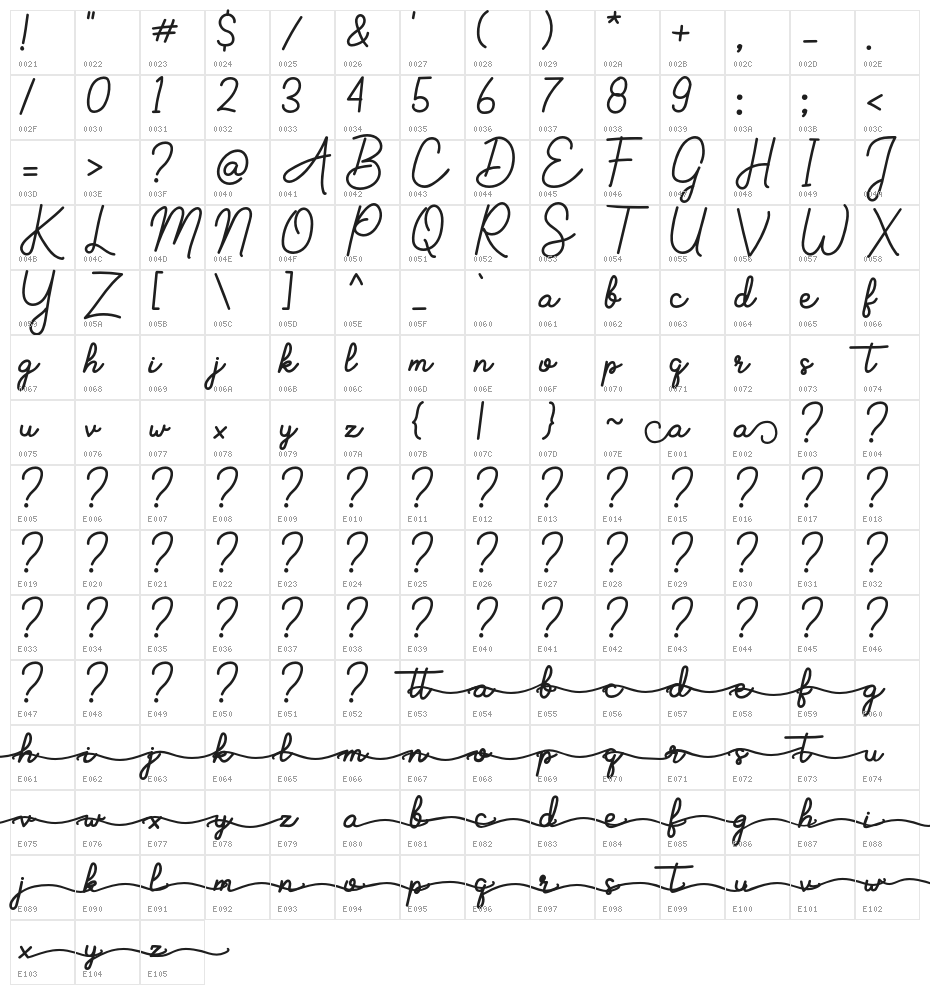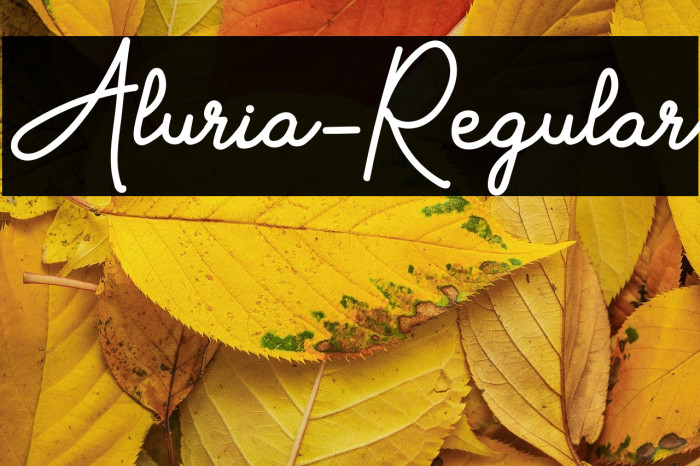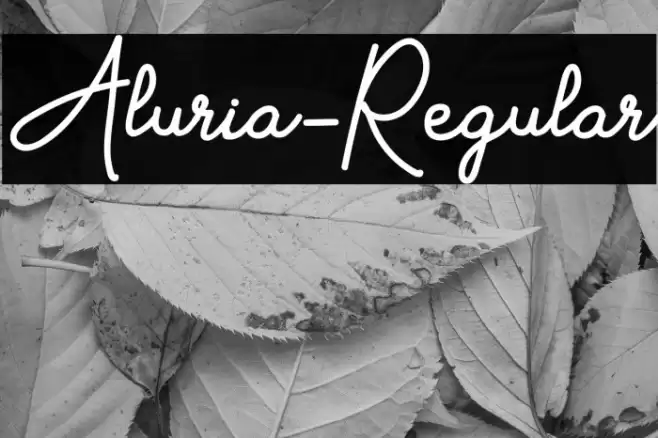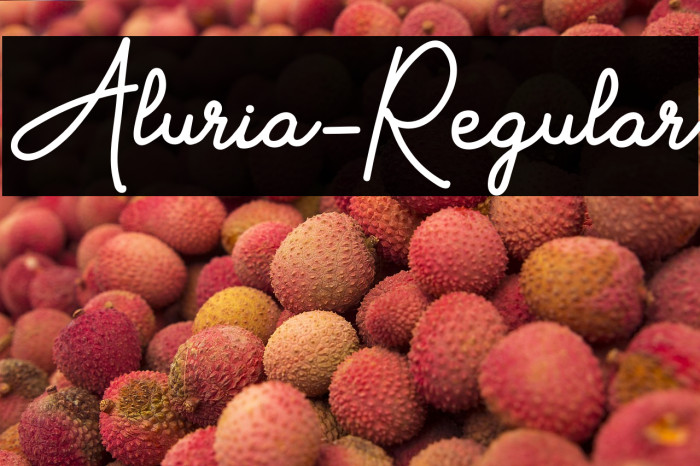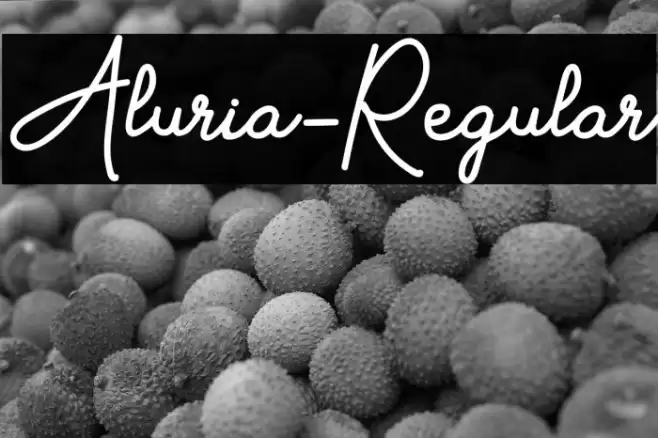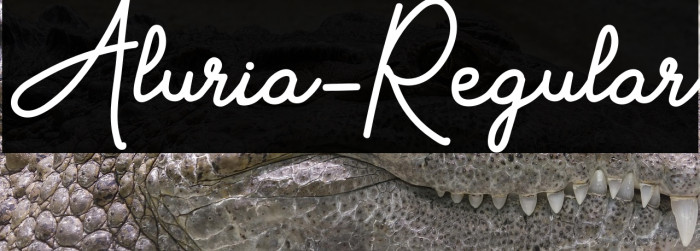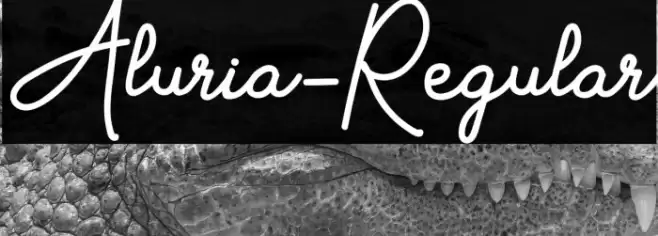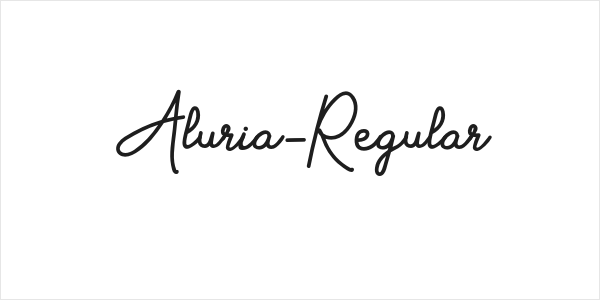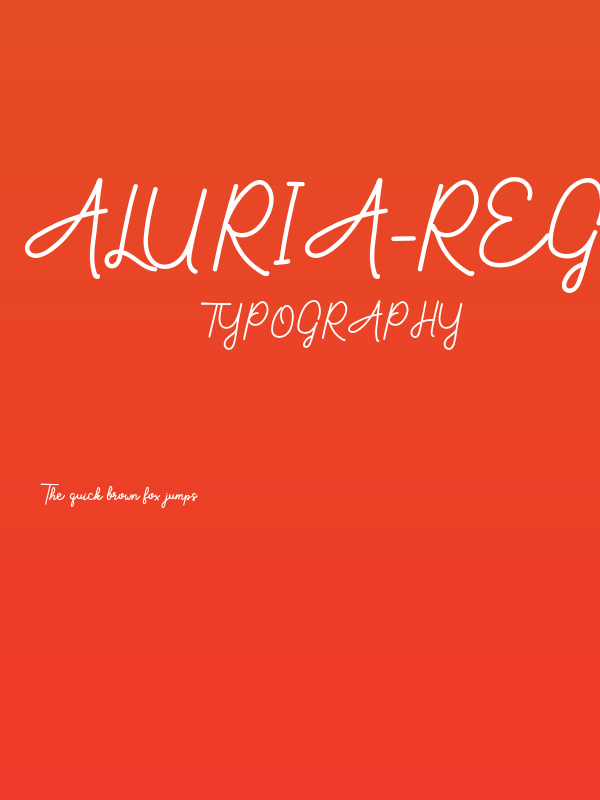
Aluria-Regular Font
Aluria-Regular Description
This font features a playful and elegant script style with a handwritten appearance. The uppercase letters are fluid and connected, giving a sense of continuity and flow. The lowercase letters maintain a similar style, with smooth curves and a consistent stroke width. The numerals are clear and legible, complementing the overall aesthetic. Special characters are included, maintaining the same fluidity and style. This font is versatile, suitable for various design projects that require a personal and artistic touch.